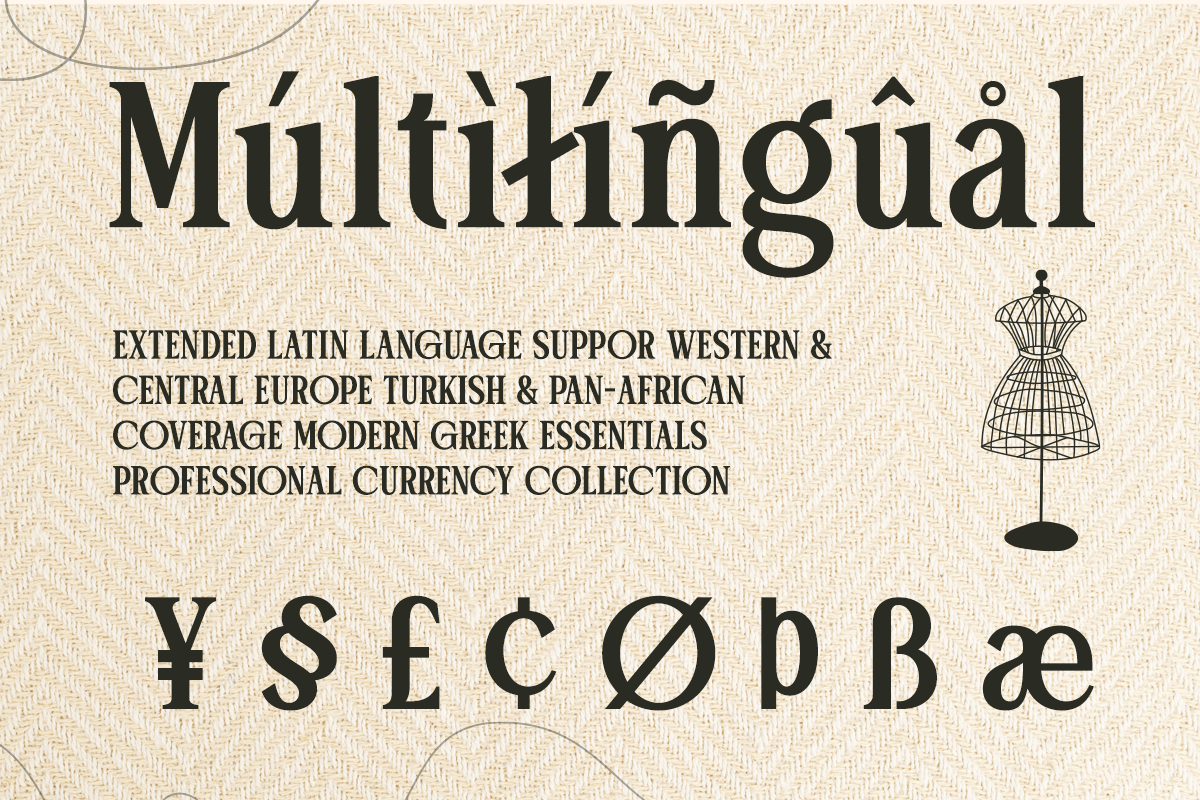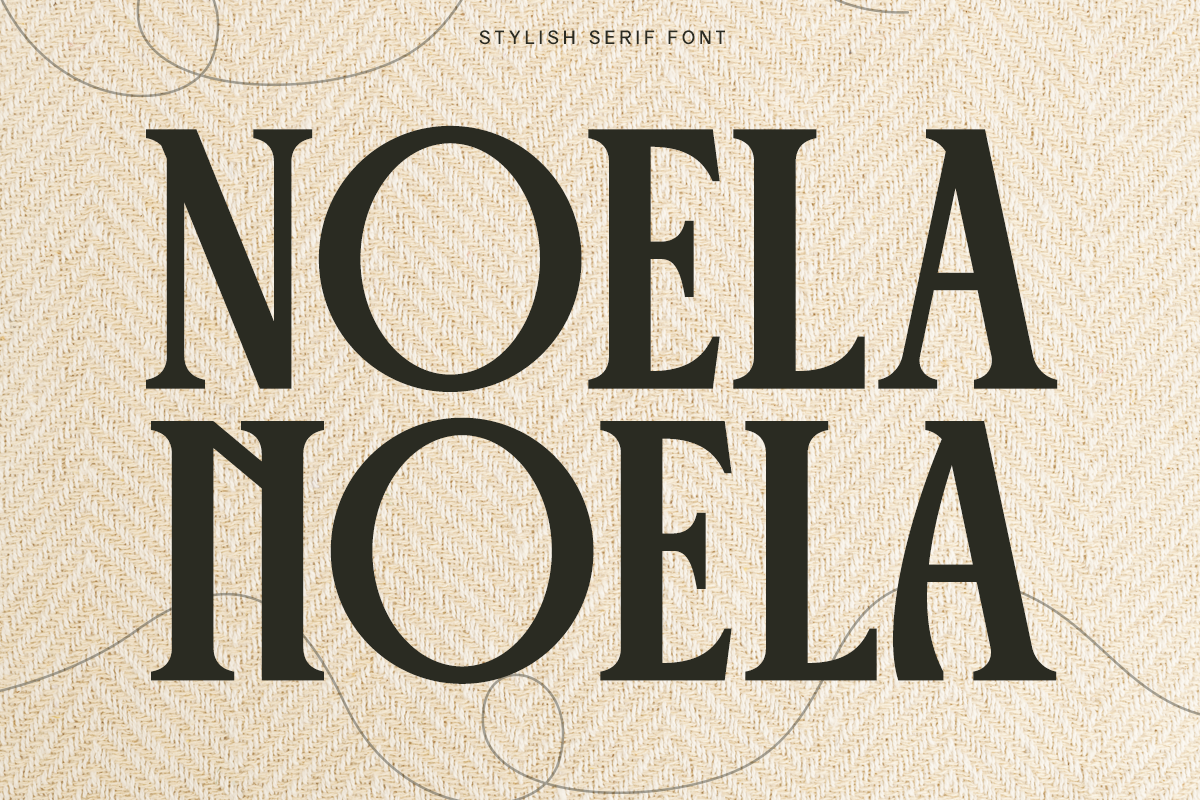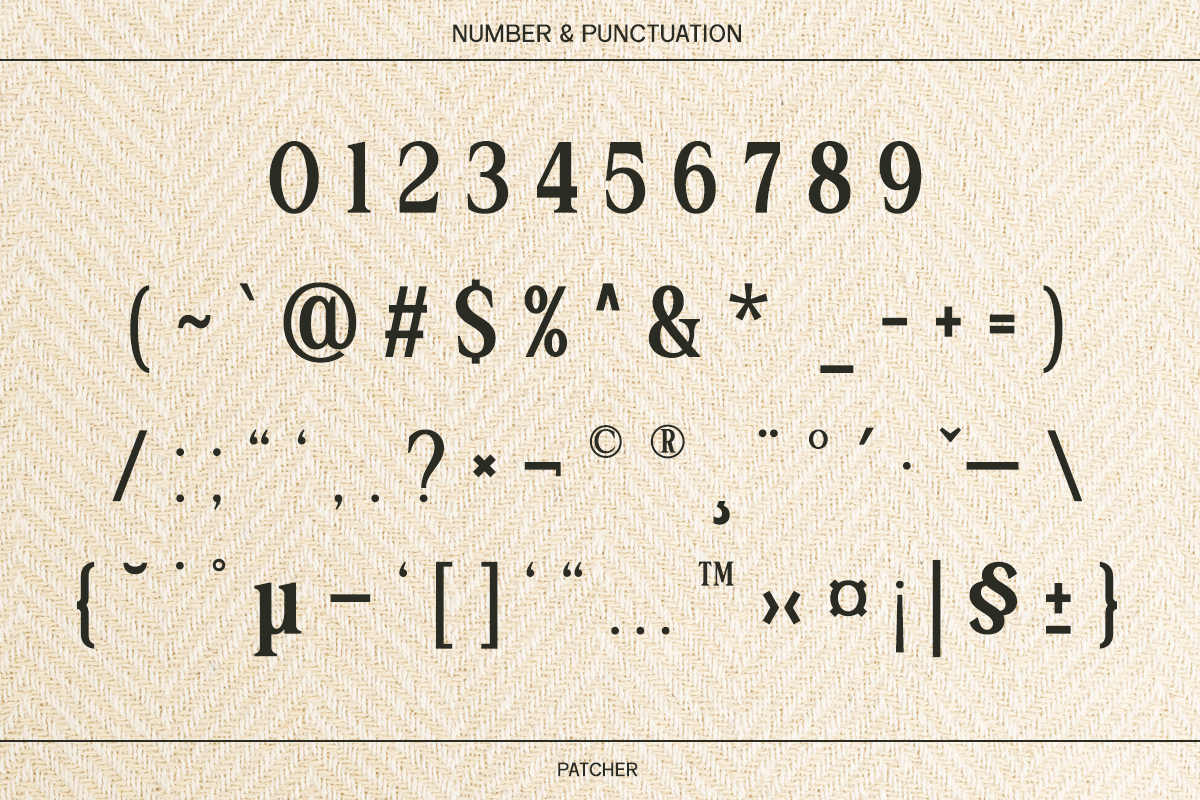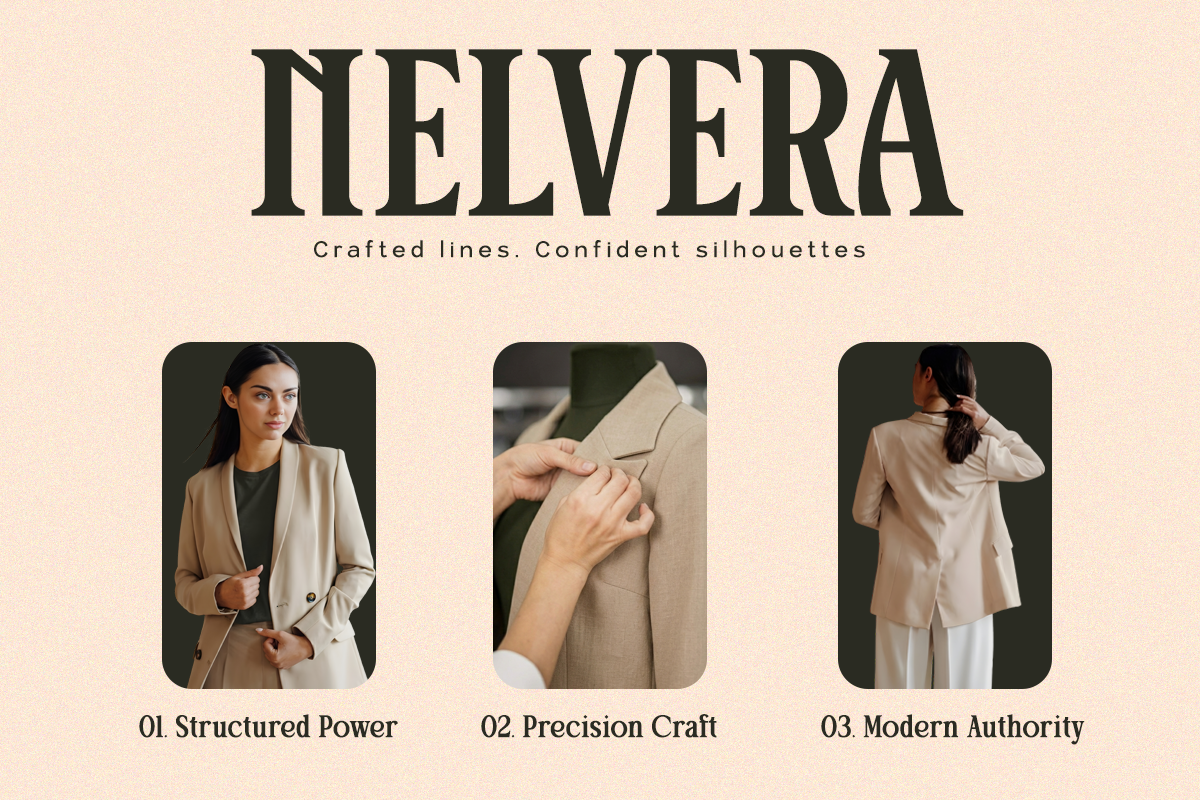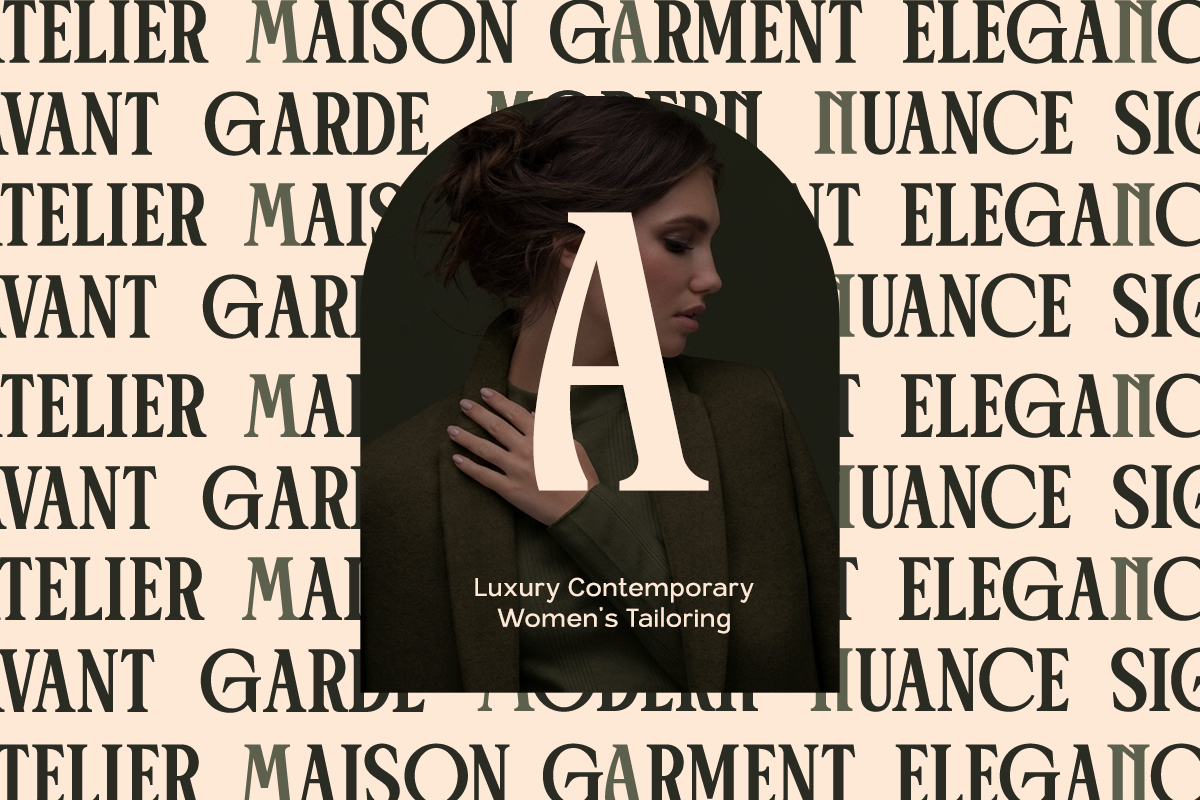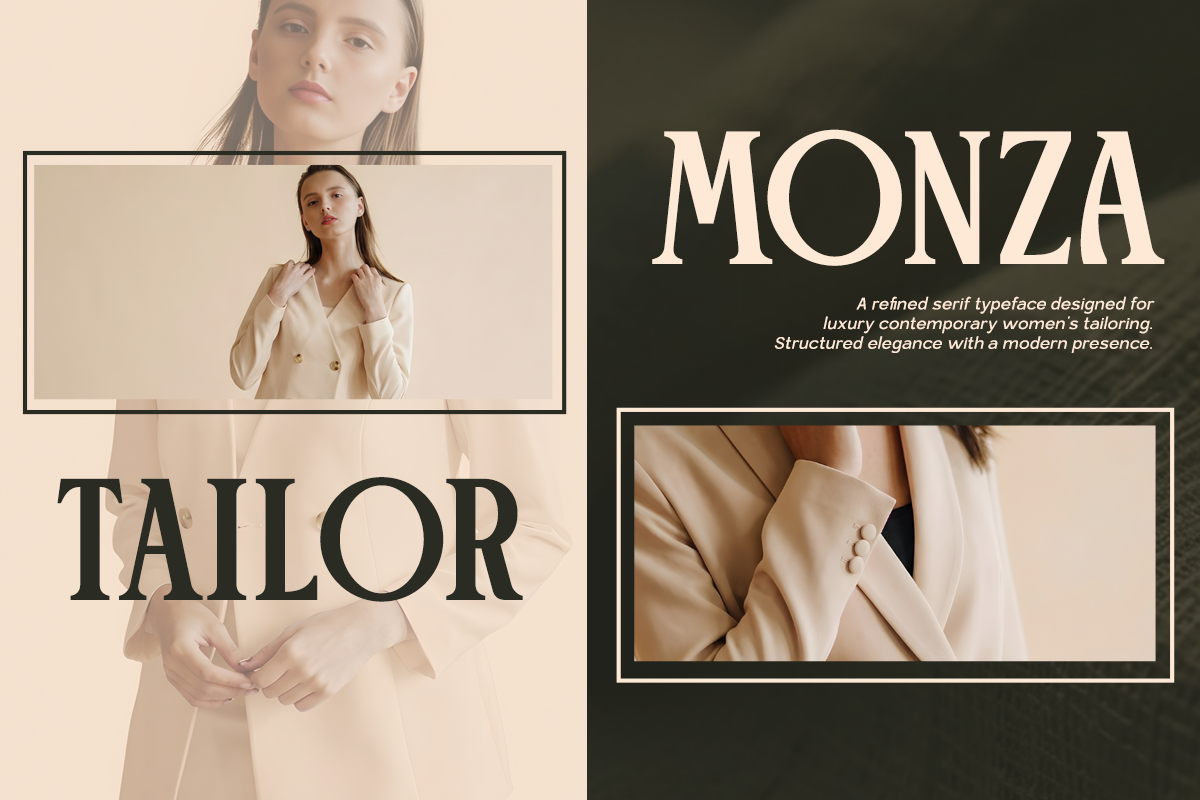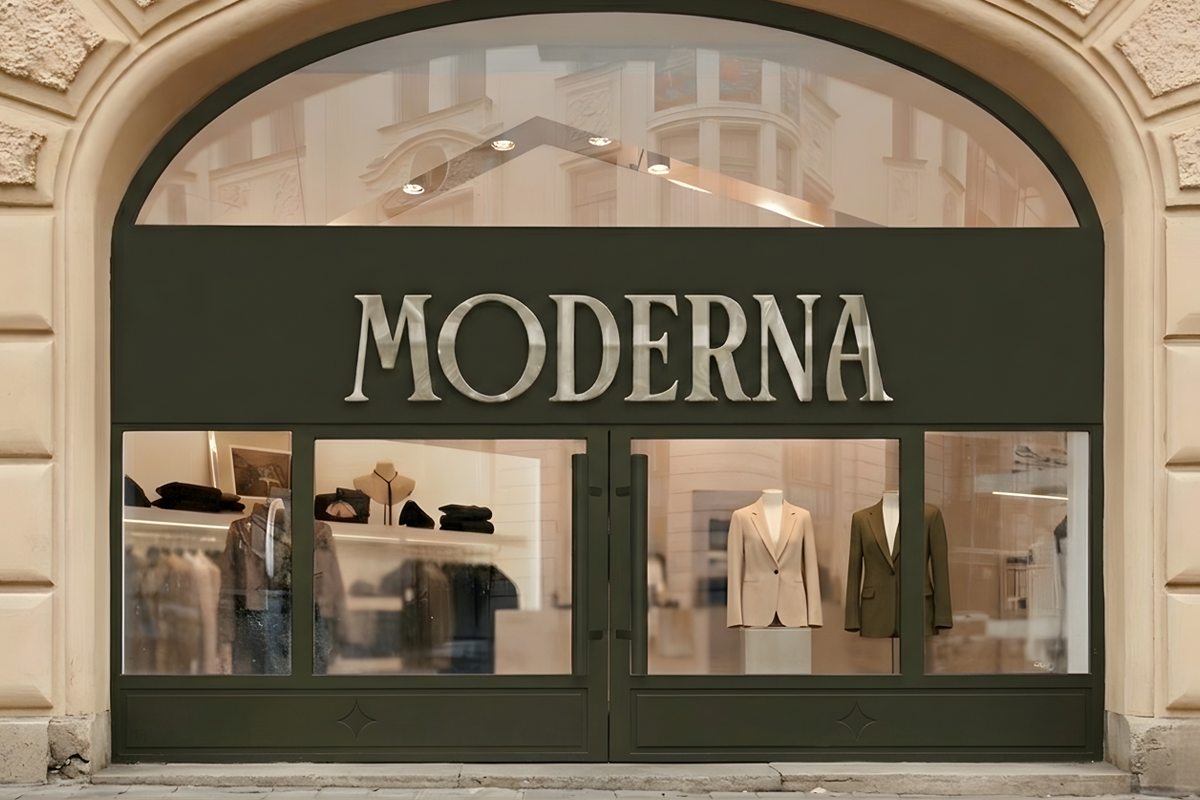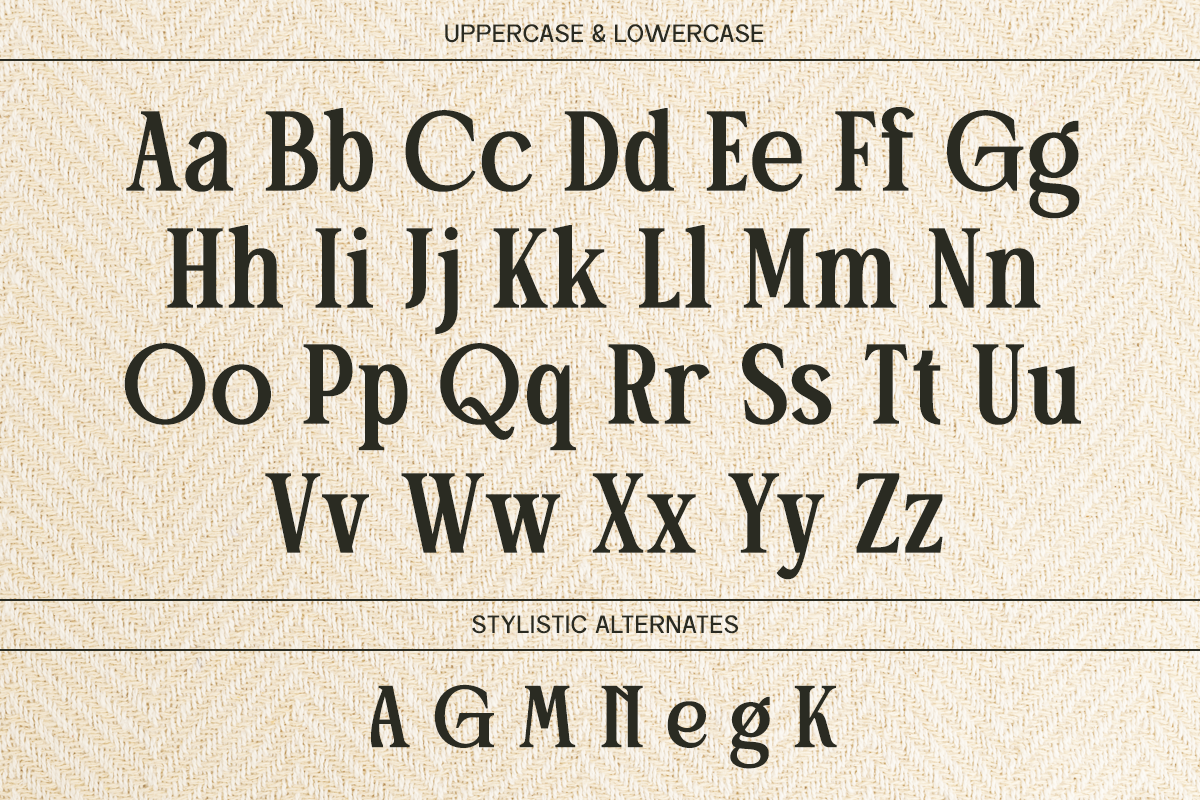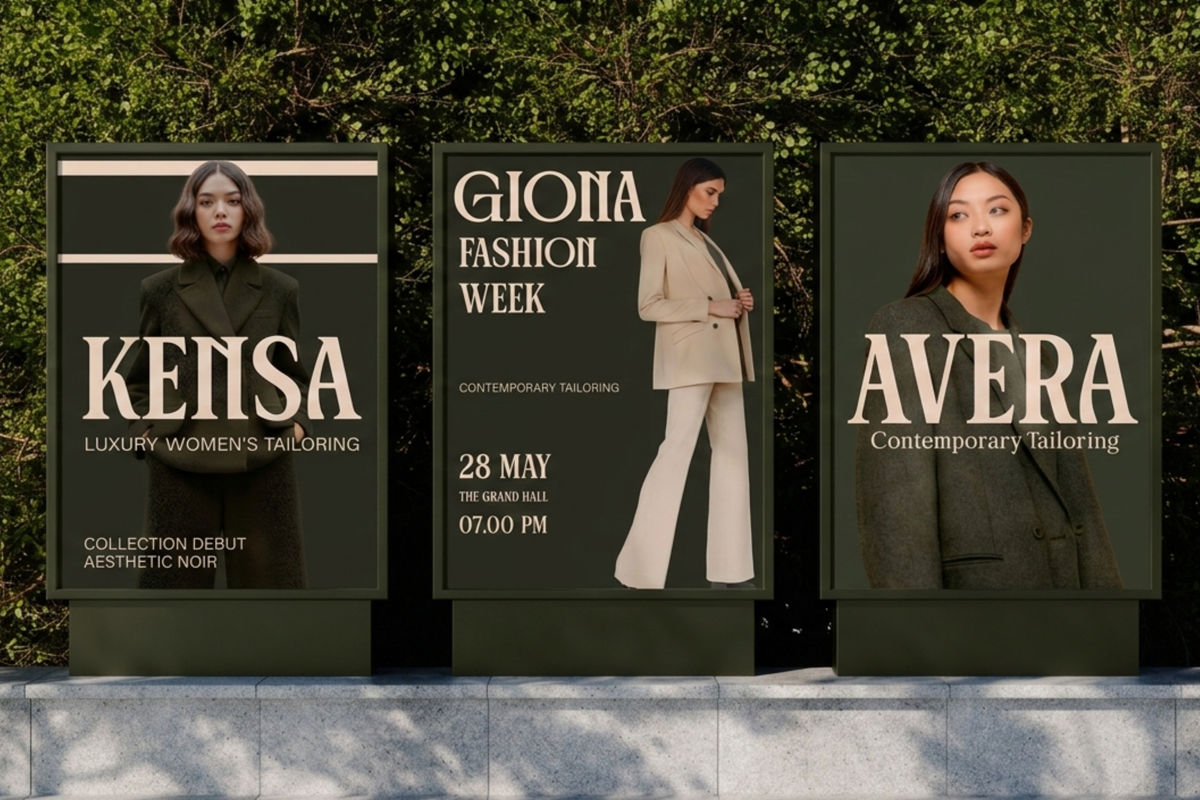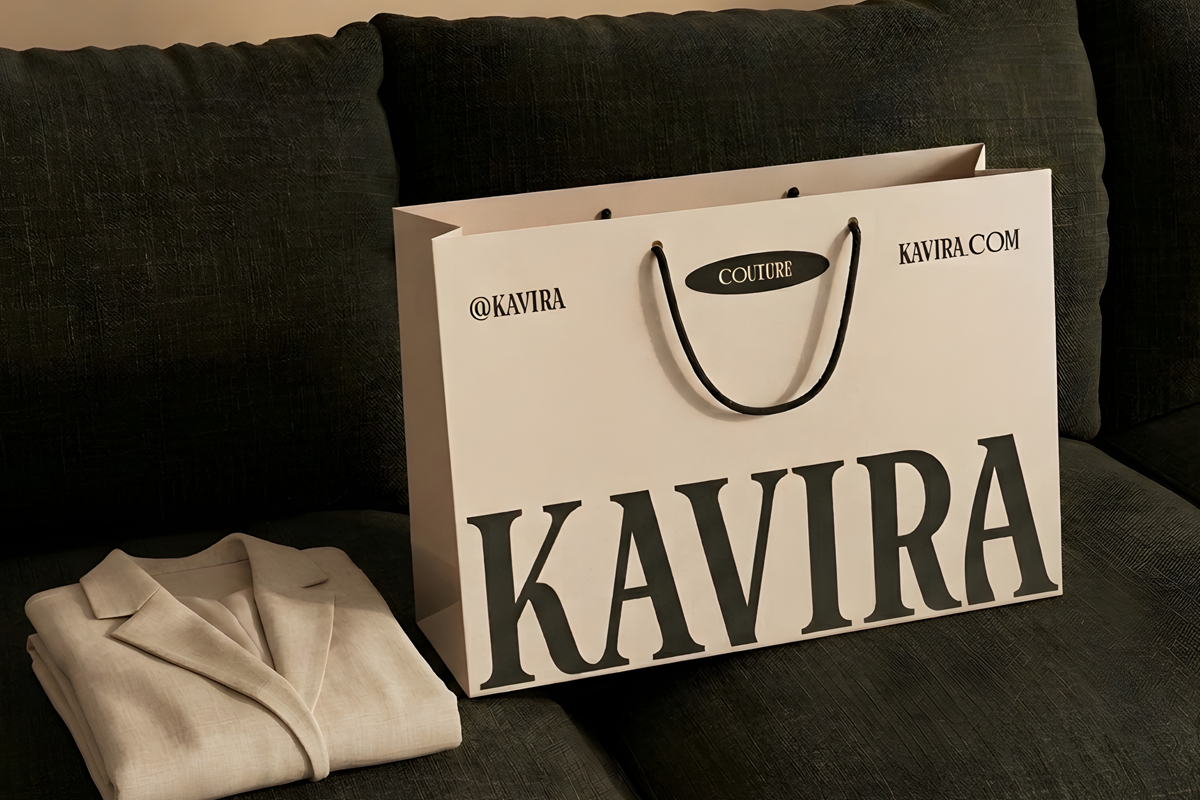
Stylish Serif - Patcher
Patcher is a stylish serif font crafted to deliver a refined and modern typographic presence. With its elegant curves, balanced serif structure, and clean proportions, Patcher blends contemporary design with timeless sophistication. The letterforms are designed to feel confident yet graceful, making the font suitable for premium visual identities.
Perfect for fashion branding, editorial layouts, luxury packaging, logos, magazines, and stylish marketing materials, Patcher offers versatility for designers who want to create sophisticated compositions. Its elegant serif structure enhances readability while maintaining a strong visual personality across both digital and print designs.
Whether used for fashion brands, modern editorials, beauty campaigns, or luxury branding, Patcher adds a sense of style and professionalism to any project. The font brings together elegance, clarity, and modern aesthetics to create designs that feel both premium and contemporary.
- Standard Uppercase & Lowercase
- Alternates Set
- Symbol & Number